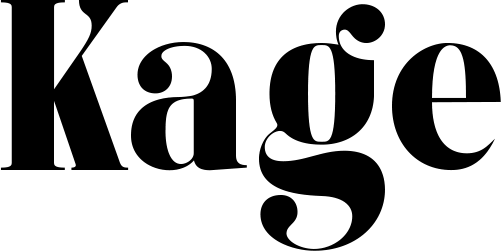
Kage Font
Occasionally you get projects that demand you to create a classic and stylish mood, and this is exactly where you can use a retro font. We suggest you try Kage and see if you can get the exact vibe that you are looking for.
From this font, you get an unbelievable collection of characters containing both the uppercase and lowercase of the alphabet, the numbers, and a few punctuation marks.